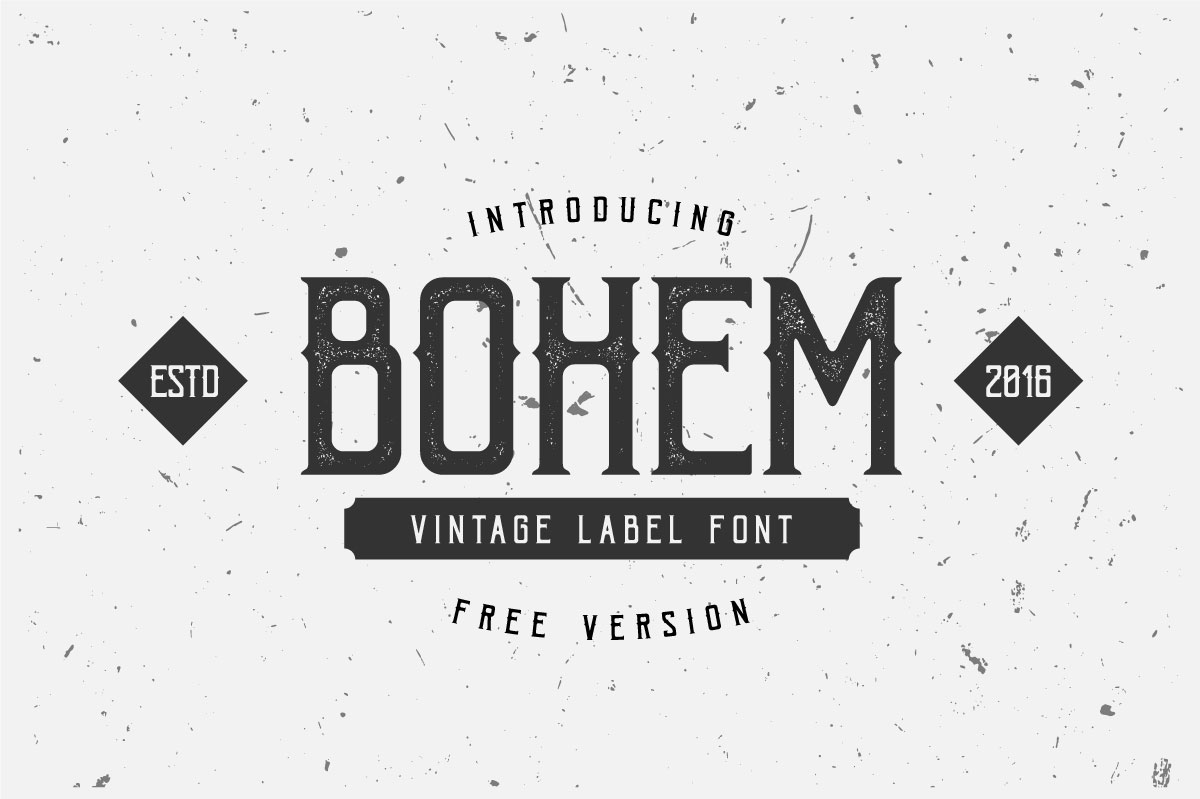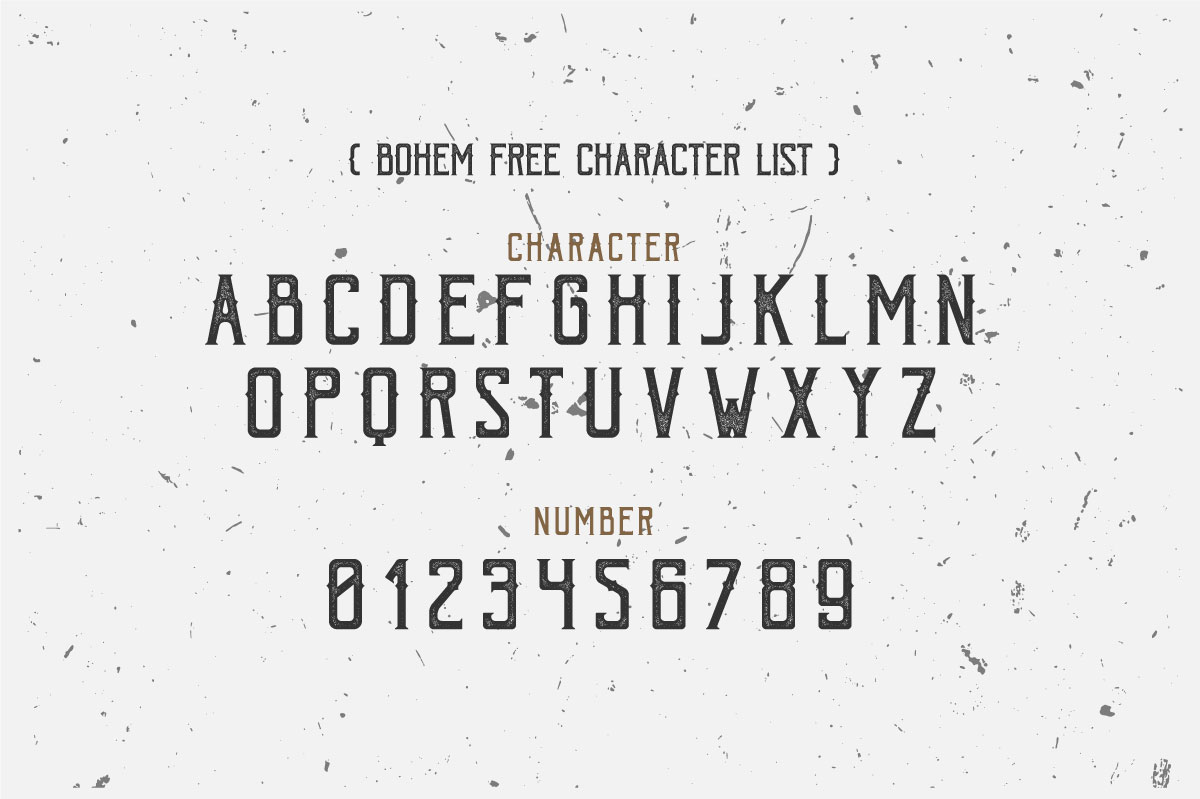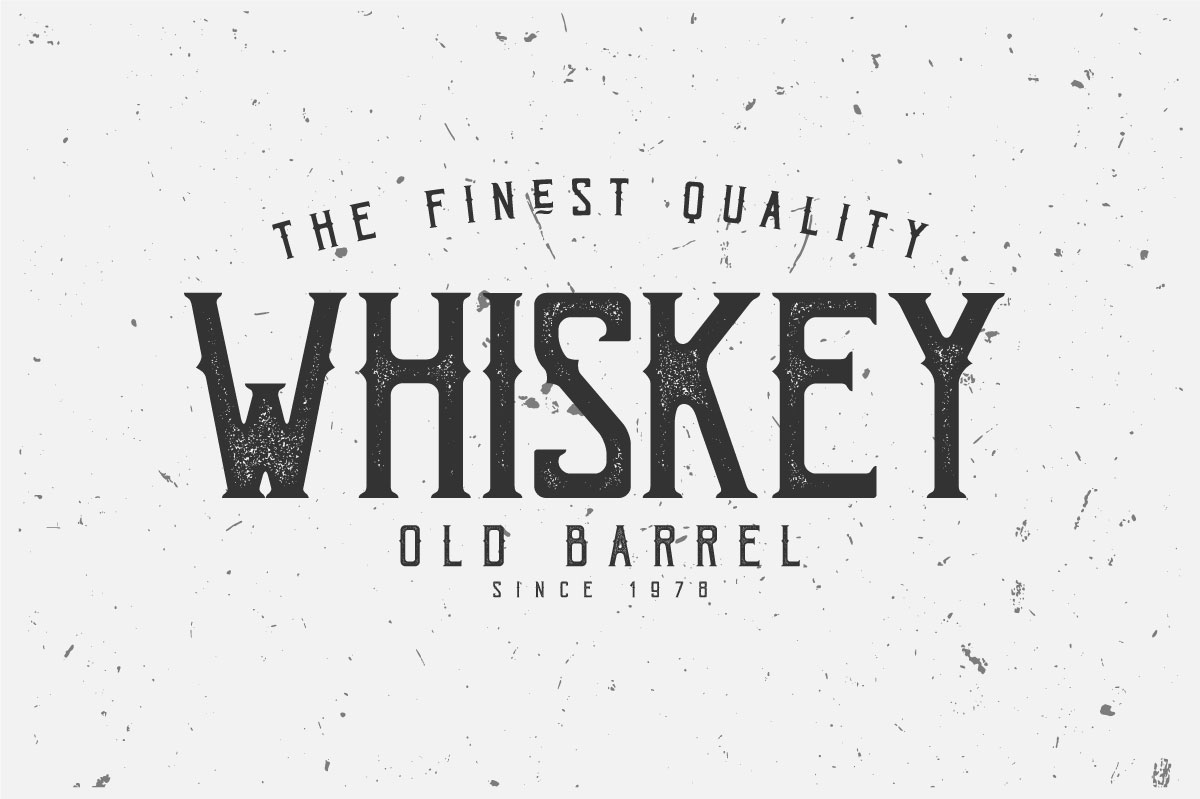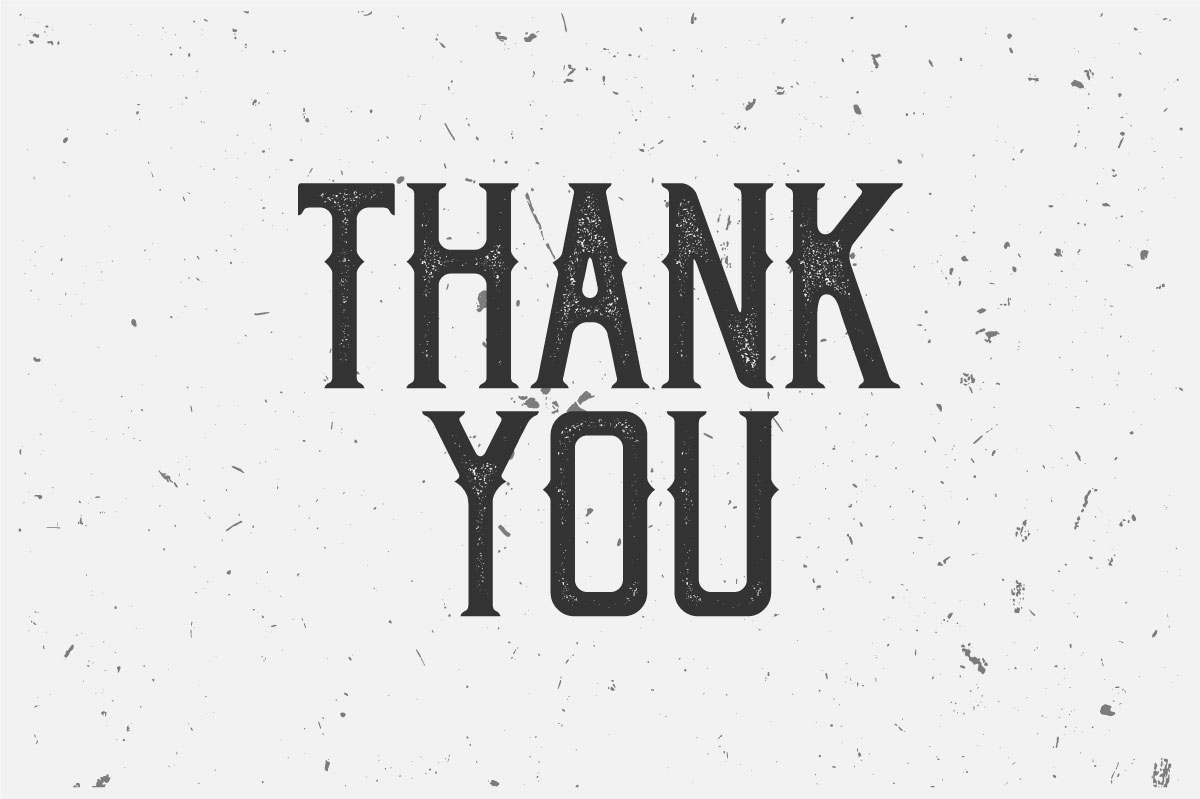
If you’re looking to add a real vintage look to your designs, this font has your name on it! Designed by Andika Setiawan from Indonesia, Bohem is perfect for logos, letterhead, drop caps, titles, posters and more! Delivered in both .OTF and .TTF formats, Bohem is free for personal and commercial use.